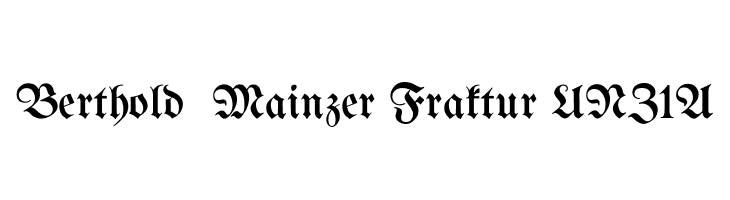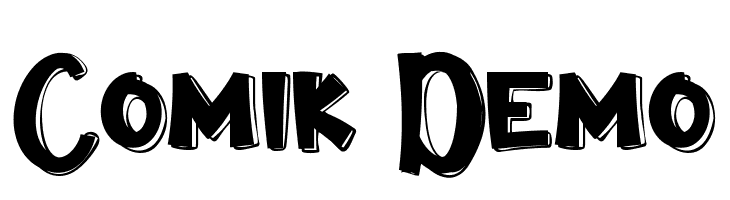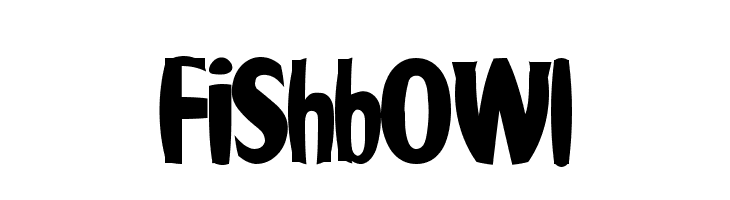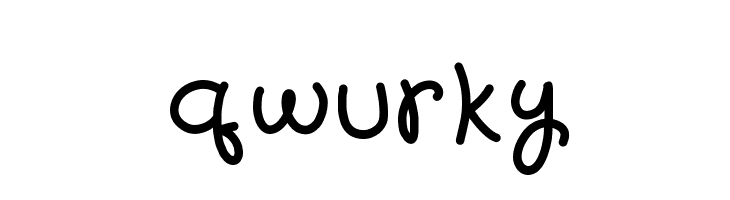
A traditional Blackletter font with intricate, ornate letterforms and a historical aesthetic.
A bold, condensed font with geometric lines and uniform stroke width.
A playful, informal handwritten font with whimsical letterforms.
A bold, dynamic comic book style font with exaggerated letterforms.